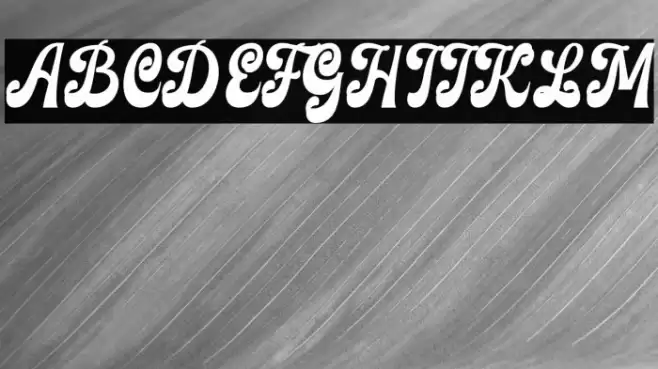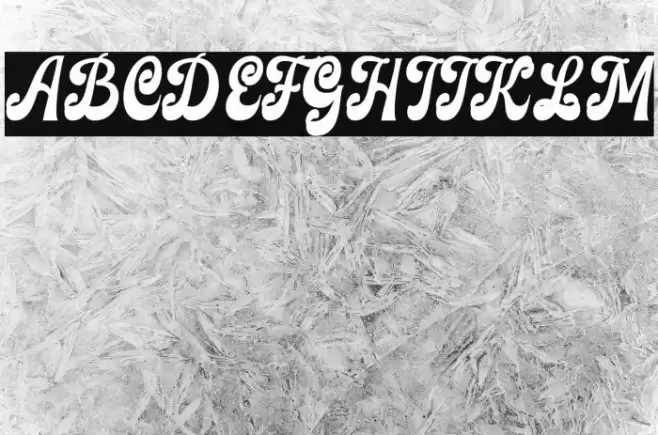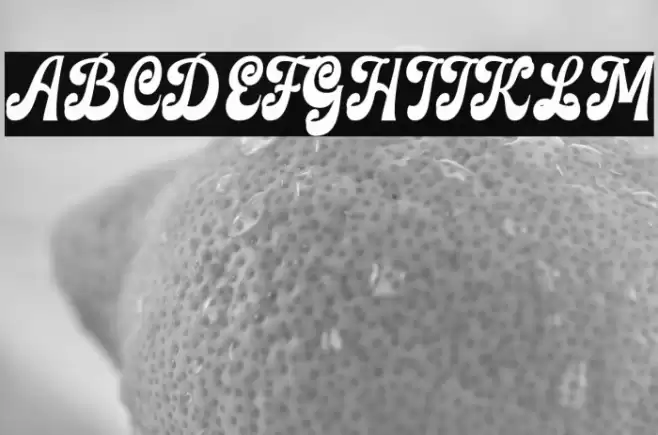
Finest Vintage Regular Font
Finest Vintage Regular Description
This font exudes a classic vintage charm with its bold, flowing script style. The characters are elegantly crafted with smooth curves and a consistent stroke width, giving it a harmonious and balanced appearance. The uppercase letters are particularly ornate, featuring subtle flourishes that enhance their visual appeal. The lowercase letters maintain a cohesive look, complementing the uppercase with their rounded forms and gentle slants. The numbers and special characters are designed to match the overall aesthetic, ensuring a seamless integration across different text elements. This font is perfect for projects that require a touch of nostalgia and sophistication.
A bold, vintage script font with elegant curves and consistent strokes from Uncategorized fonts.
- Font: Finest Vintage Regular
- Proposed Projects: Ideal for branding, invitations, packaging, and any design that seeks a vintage or retro feel.
- Overall Style: Vintage
- Use Case: Logos, Headlines, Invitations